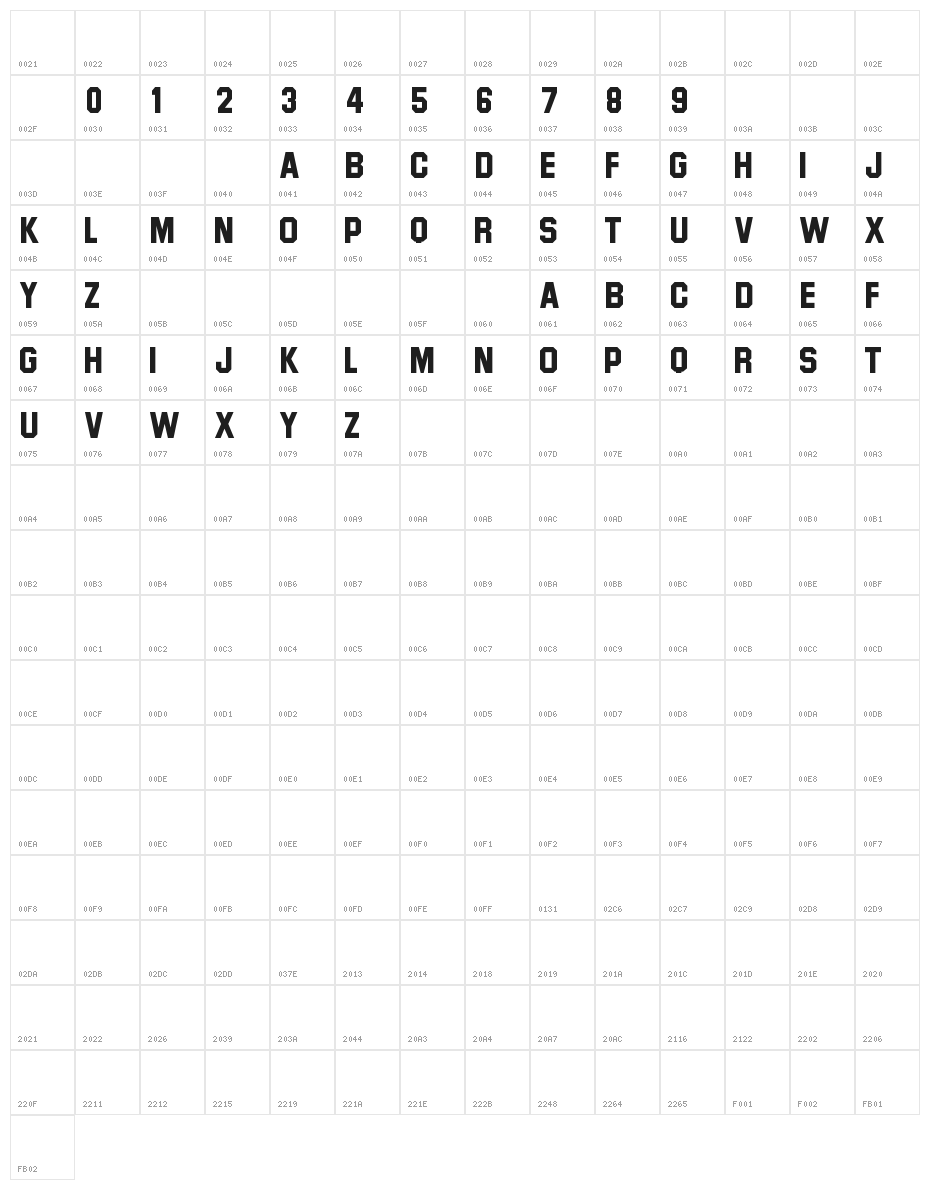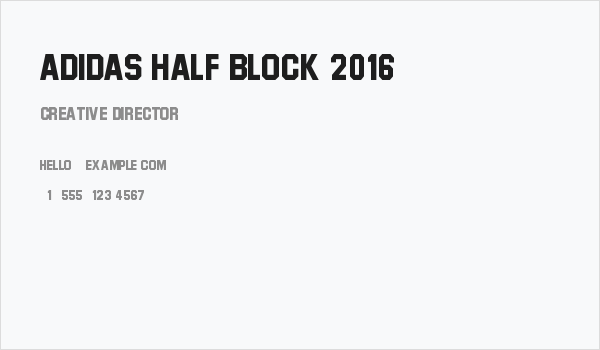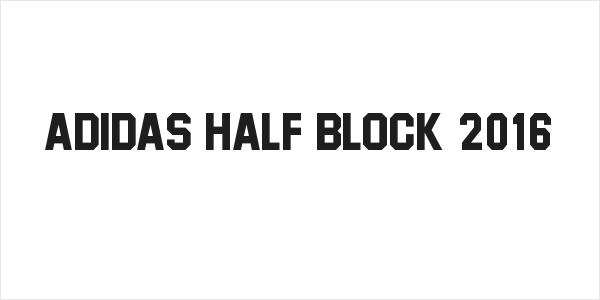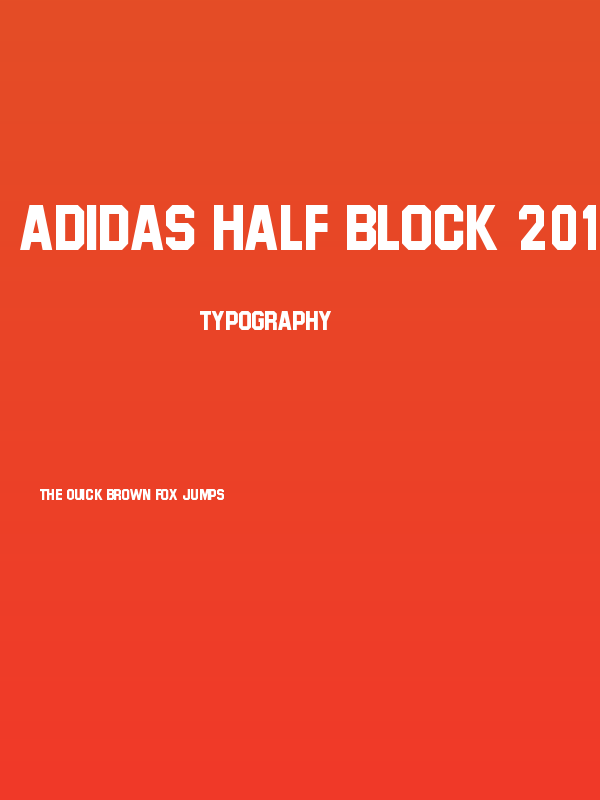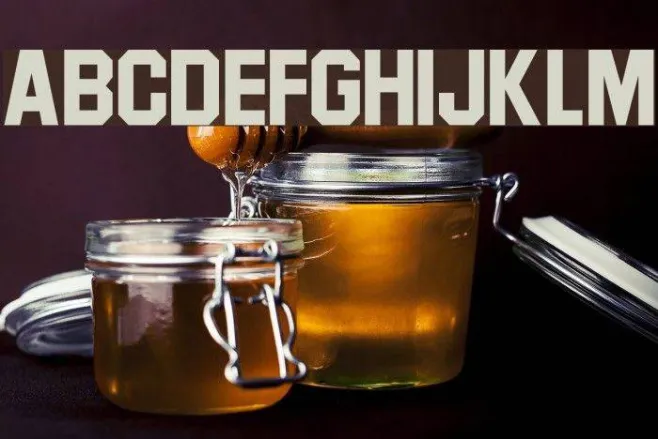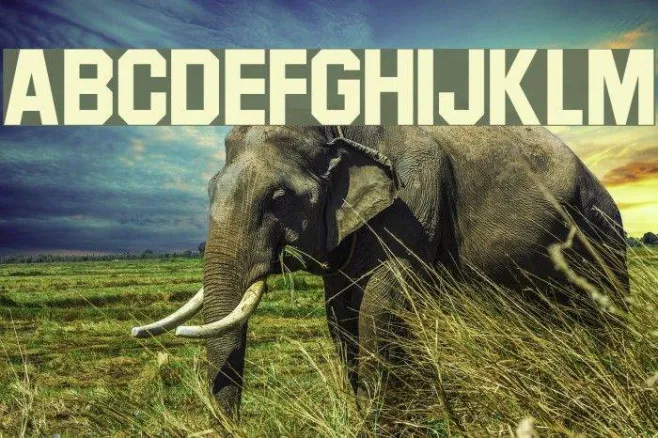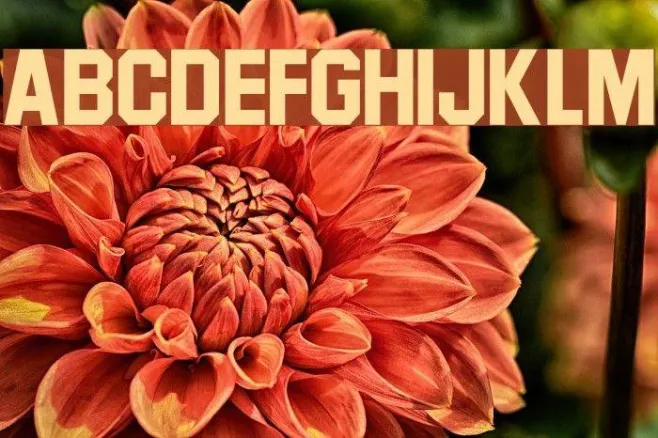
Adidas Half Block 2016 Font
Adidas Half Block 2016 Description
This font features a bold, geometric design with strong, angular lines and a blocky appearance. The characters are uniform in height and width, creating a cohesive and structured look. The uppercase letters are particularly striking, with their sharp edges and solid forms. The numbers and special characters maintain the same bold style, ensuring consistency across all elements. This font is ideal for making a strong visual impact, with its high readability and distinctive style.
| Proposed Projects | Ideal for sports branding, posters, headlines, and any project needing a bold, impactful typeface. |